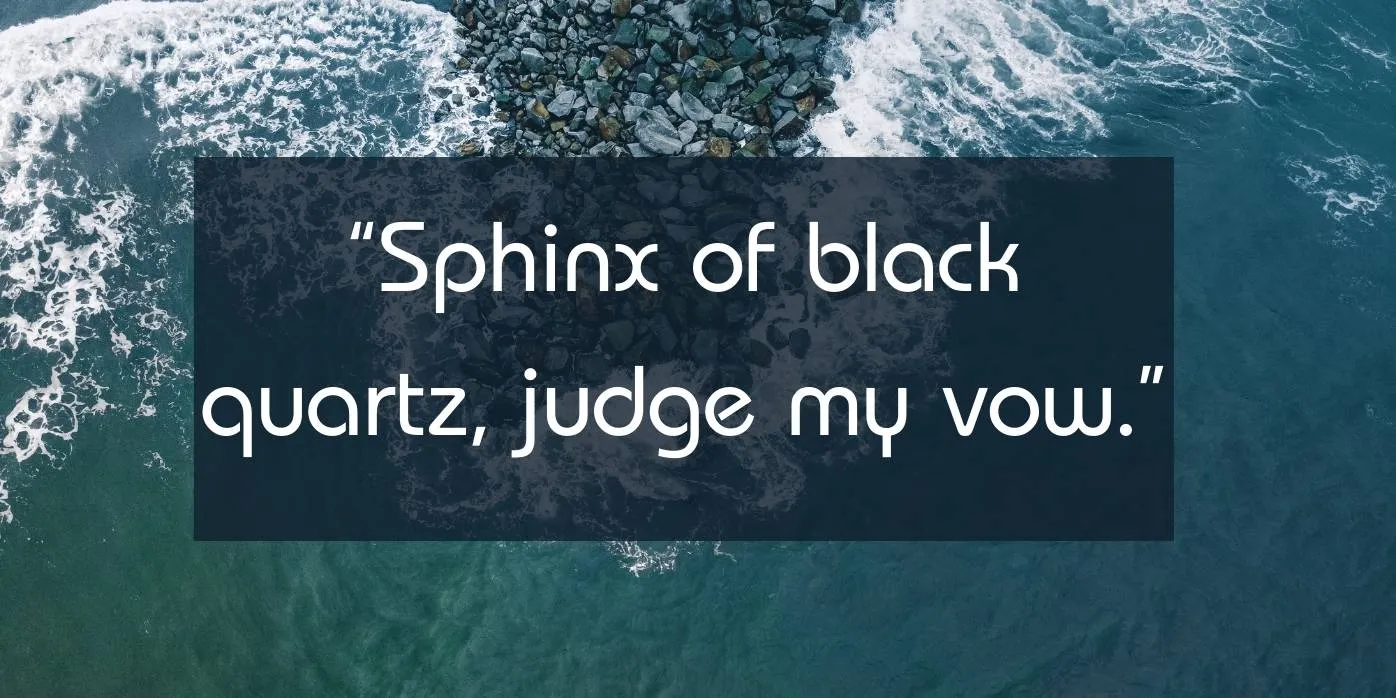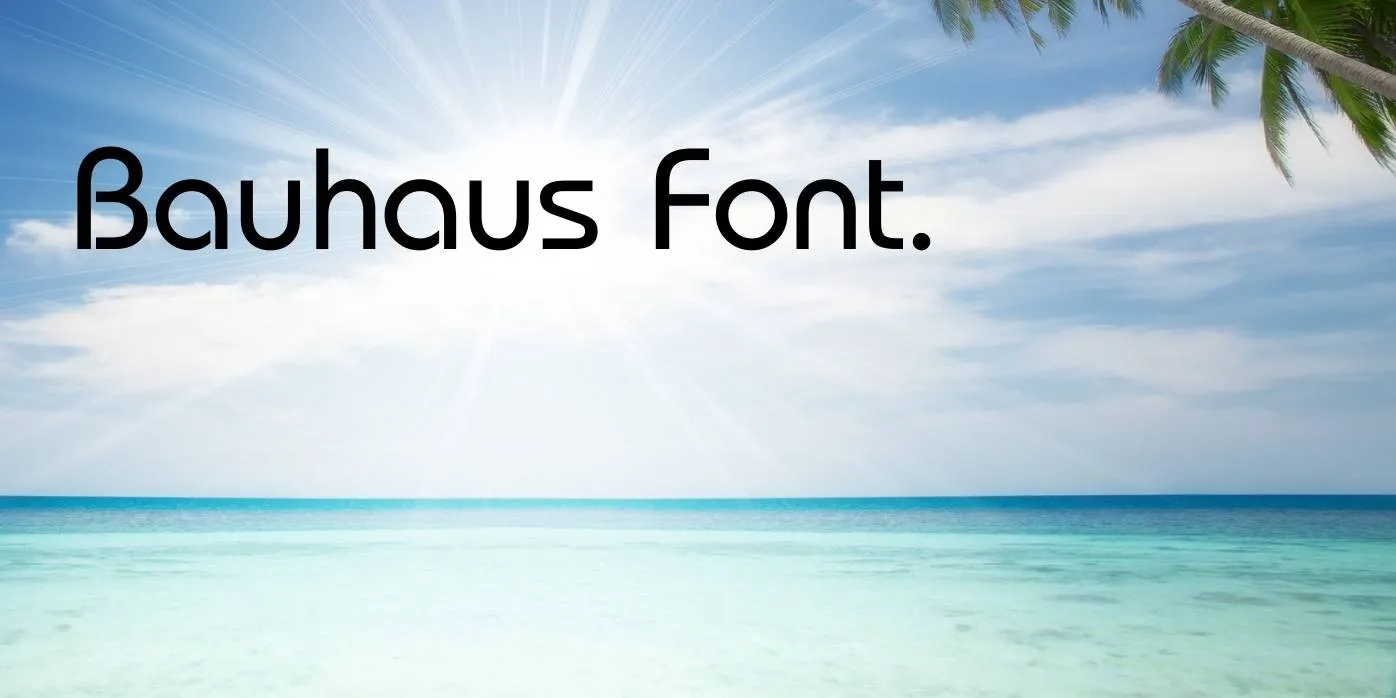
Bauhaus Font
Here we present an astonishing and staggering font family that was known by name Bauhaus Font. This classy font family belongs to the Sans-Serif typeface. This awesome font was developed by famous designer Joe Taylor. This tremendous font family was released first time in the year 1962.
After a few years, another version of this stylish font family was released named Bauhaus Font. This version was released in the year 1993 and made popular all over the world. Helvetica Font is similar to this cozy typeface and gets massive fame in various fields. Different companies use this smooth-looking font family in their projects and functions.